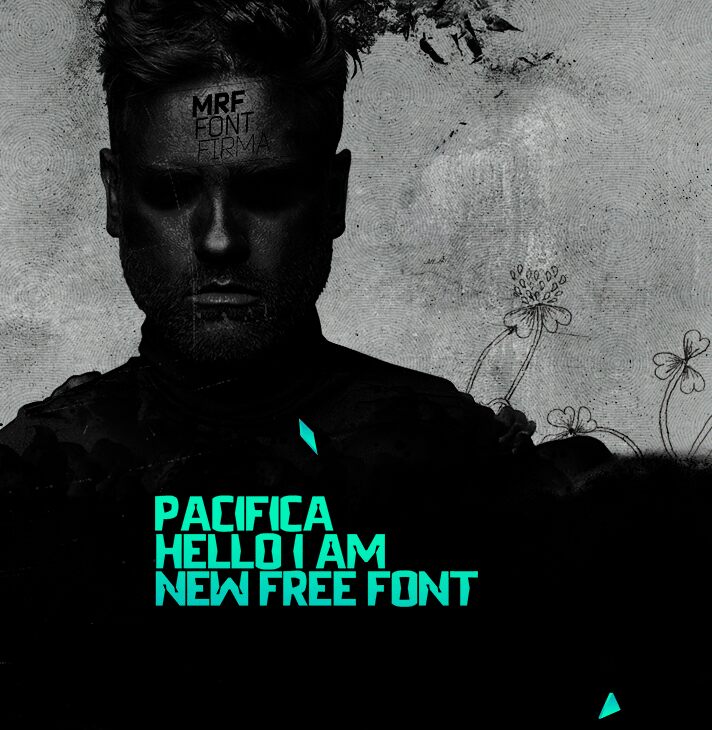
Pacifica by Frolov Alex of MRfrukta is a free decorative display font with massive, irregular capitals and sharply cut interior spaces. The letters lurch between broad and narrow forms, creating a restless silhouette.
Music and street culture provide a natural setting for album covers, festival posters, and skate merchandise. Across these uses, its blunt weight and chopped geometry turn lettering into an assertive graphic shape rather than a quiet caption.